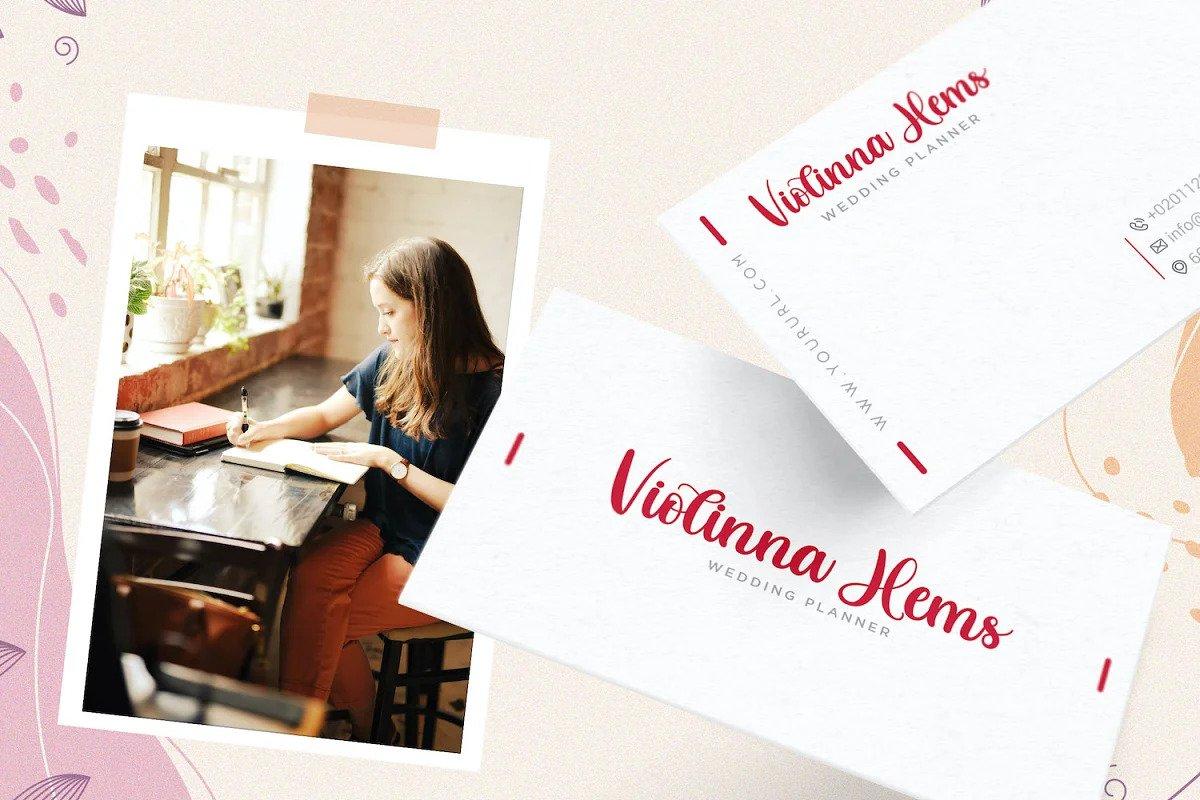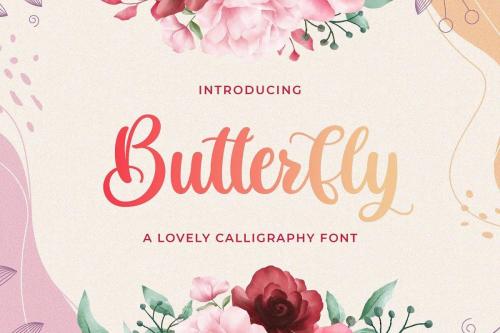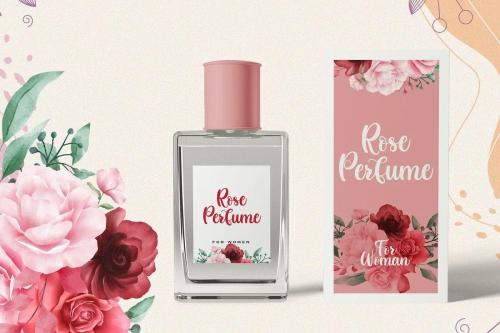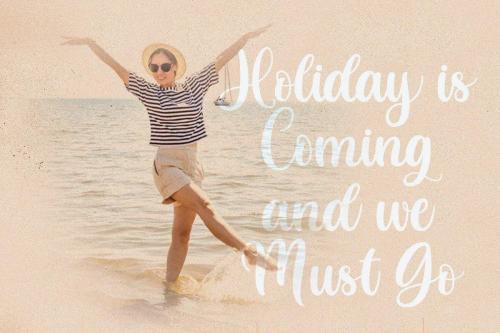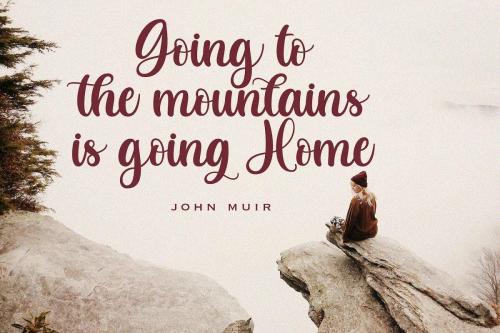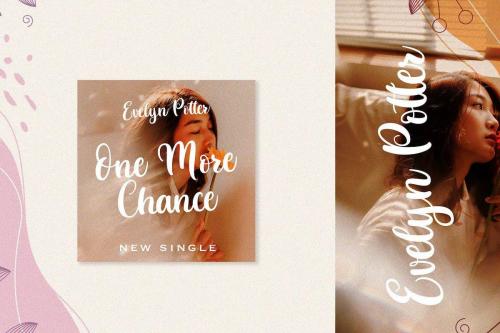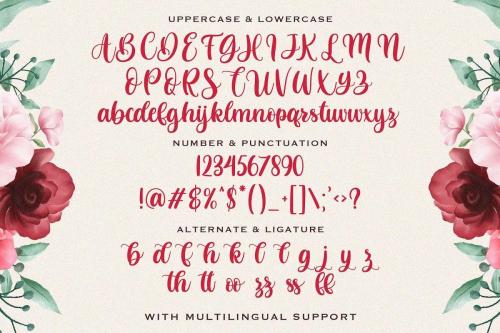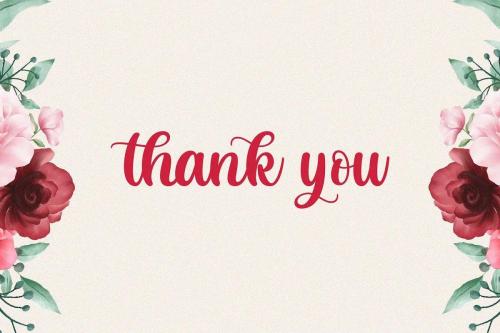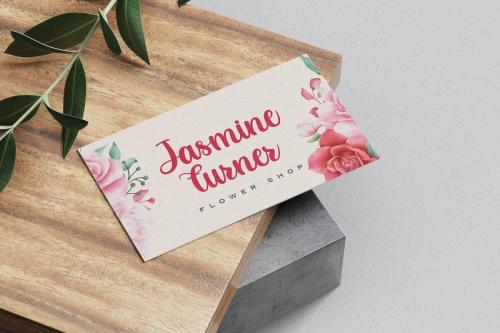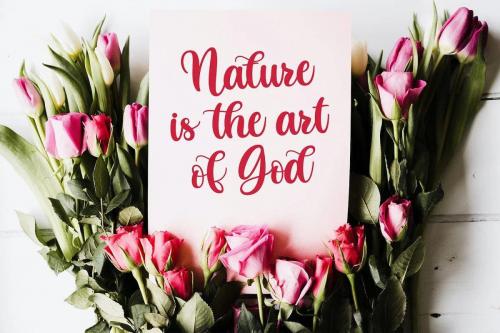
Introducing Butterfly – Lovely Calligraphy Font
Batherfly feels equally charming and elegant. It looks stunning on wedding invitations, thank you cards, quotes, greeting cards, logos, business cards and every other design which needs a handwritten touch.
This font is PUA encoded which means you can access all of the glyphs and swashes with ease! It features a varying baseline, smooth lines, gorgeous glyphs and stunning alternates.